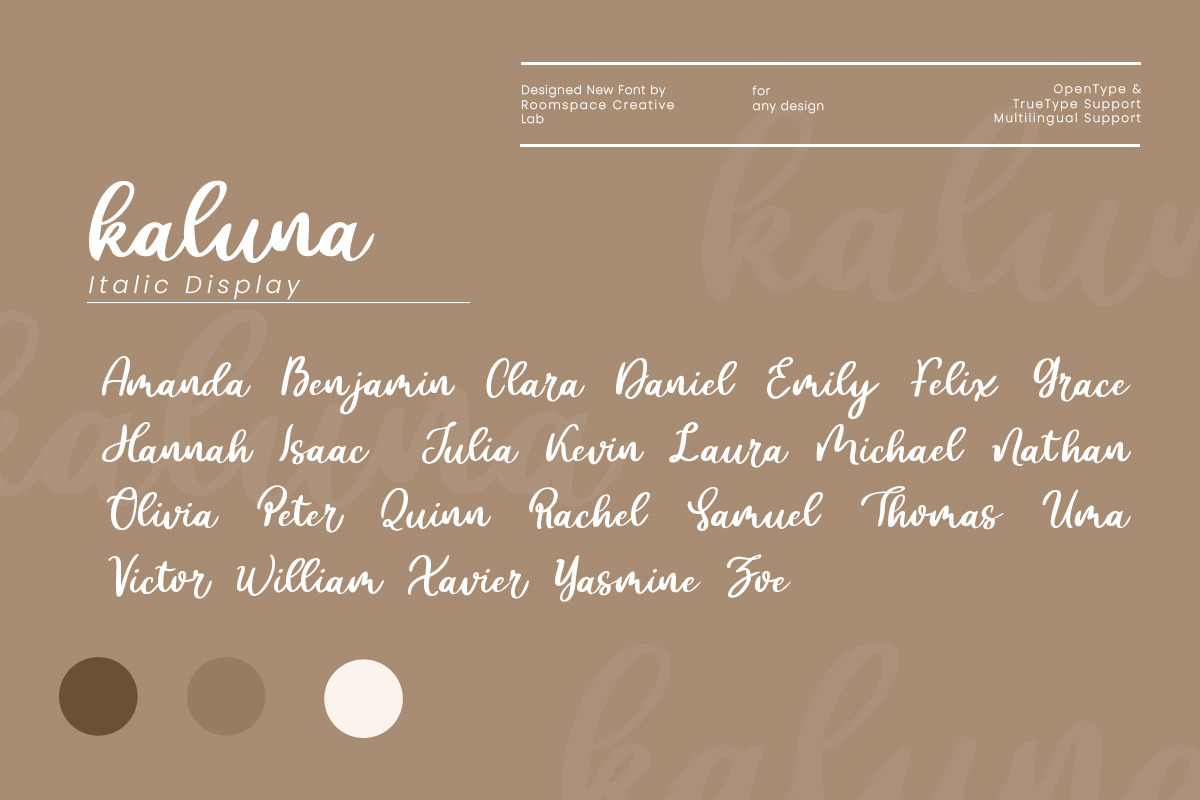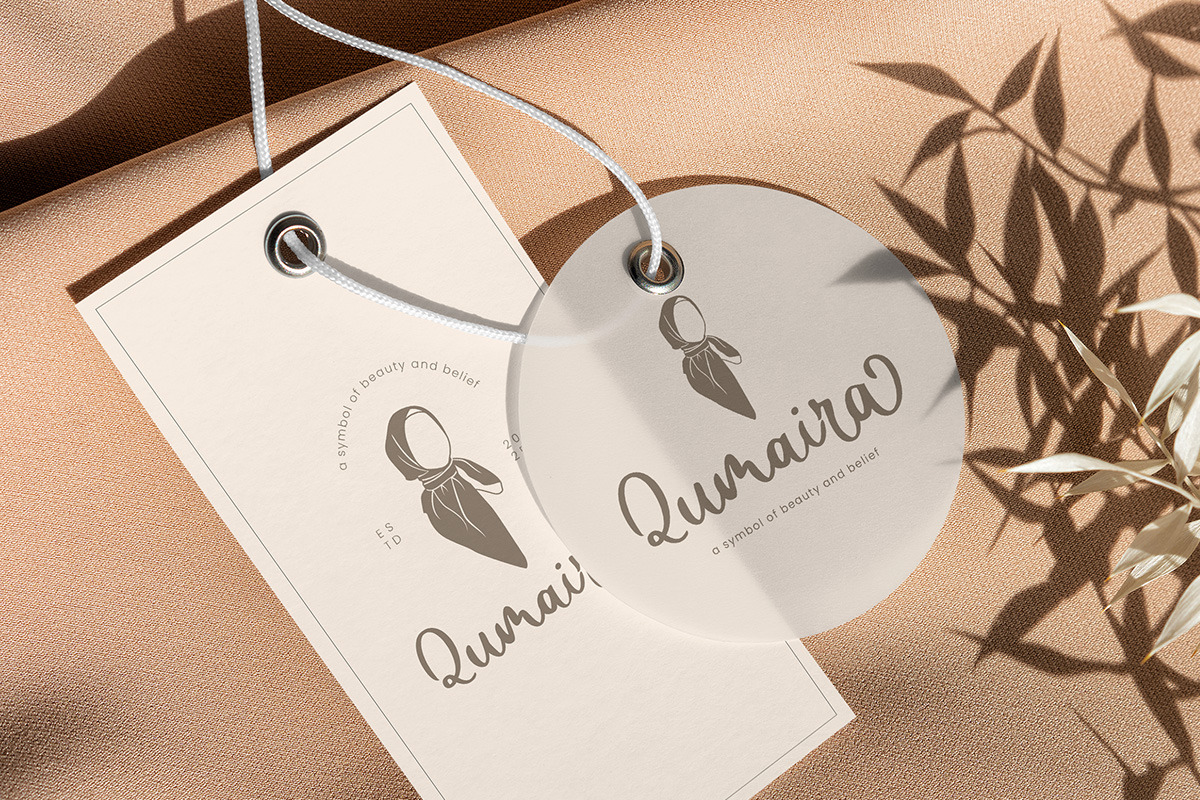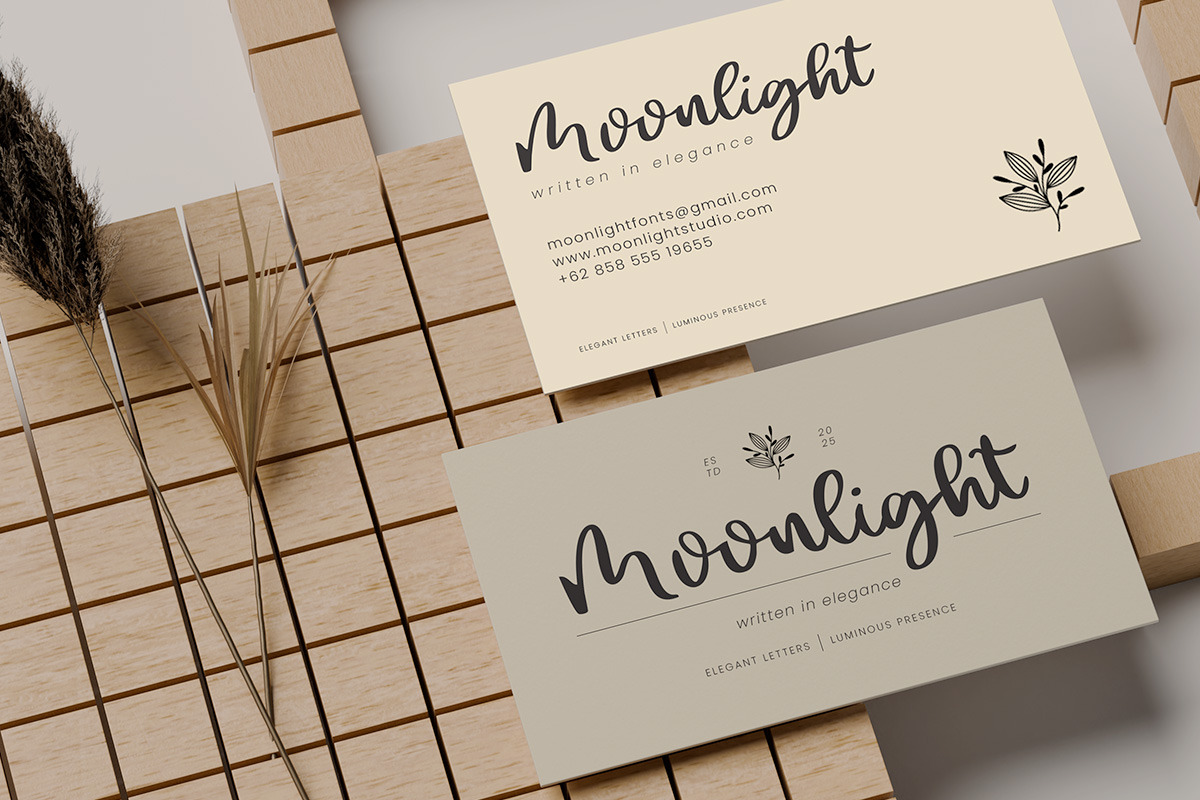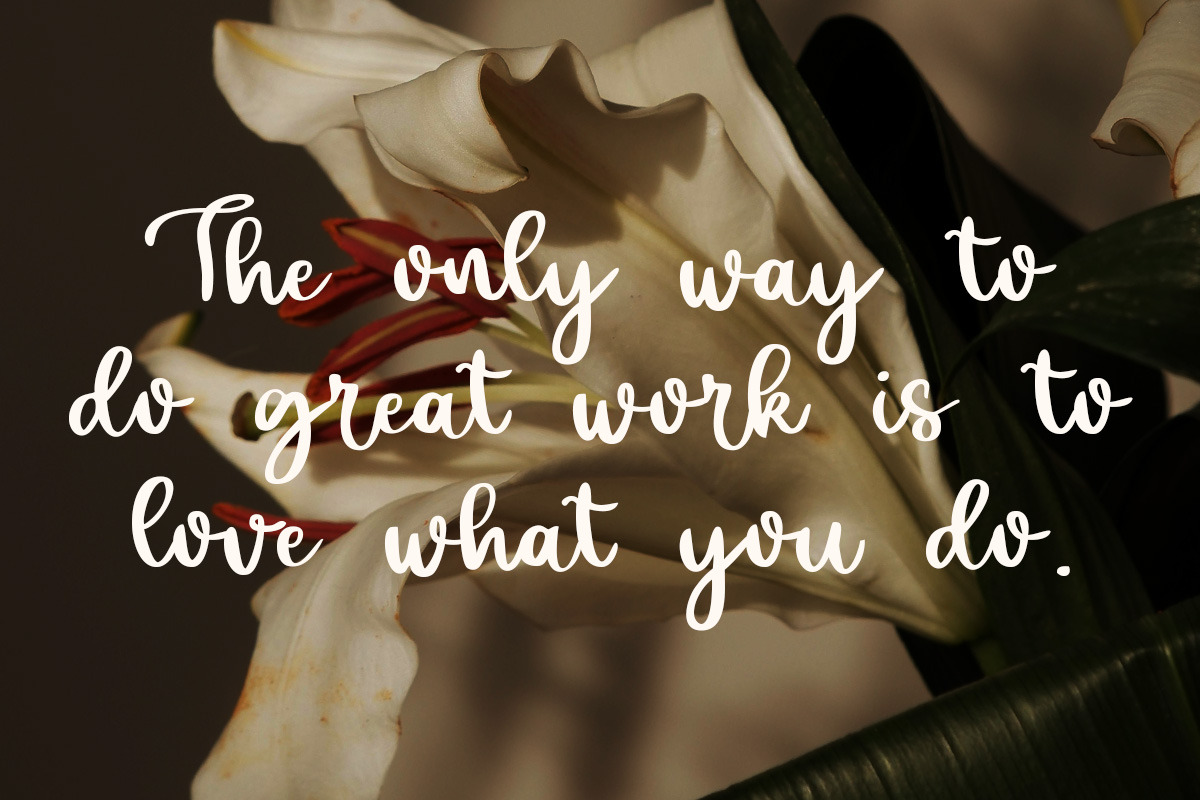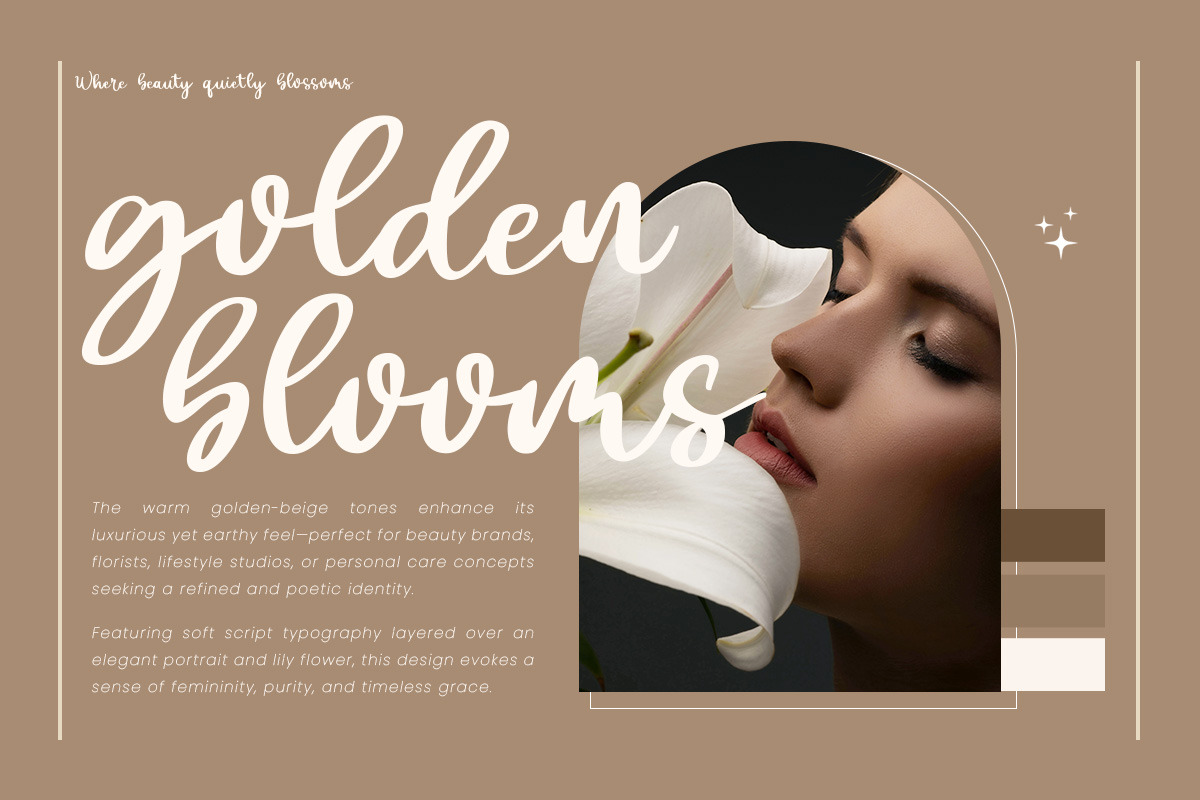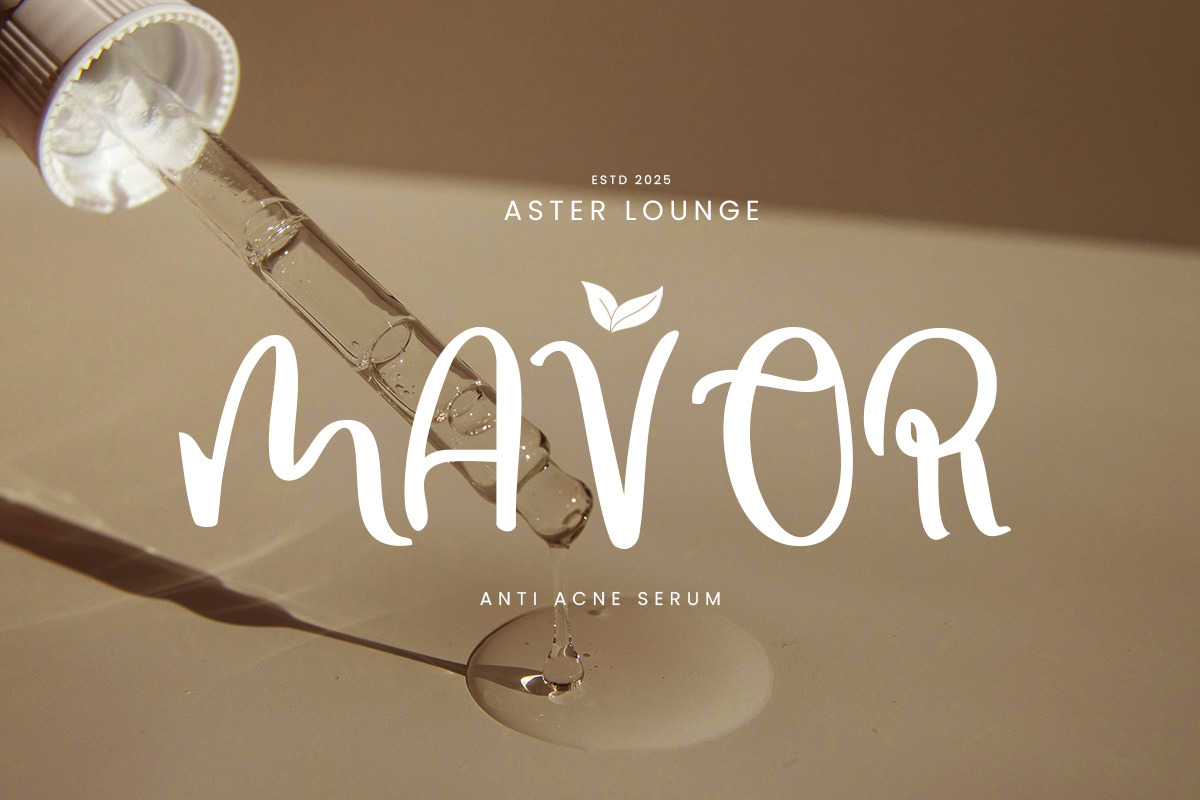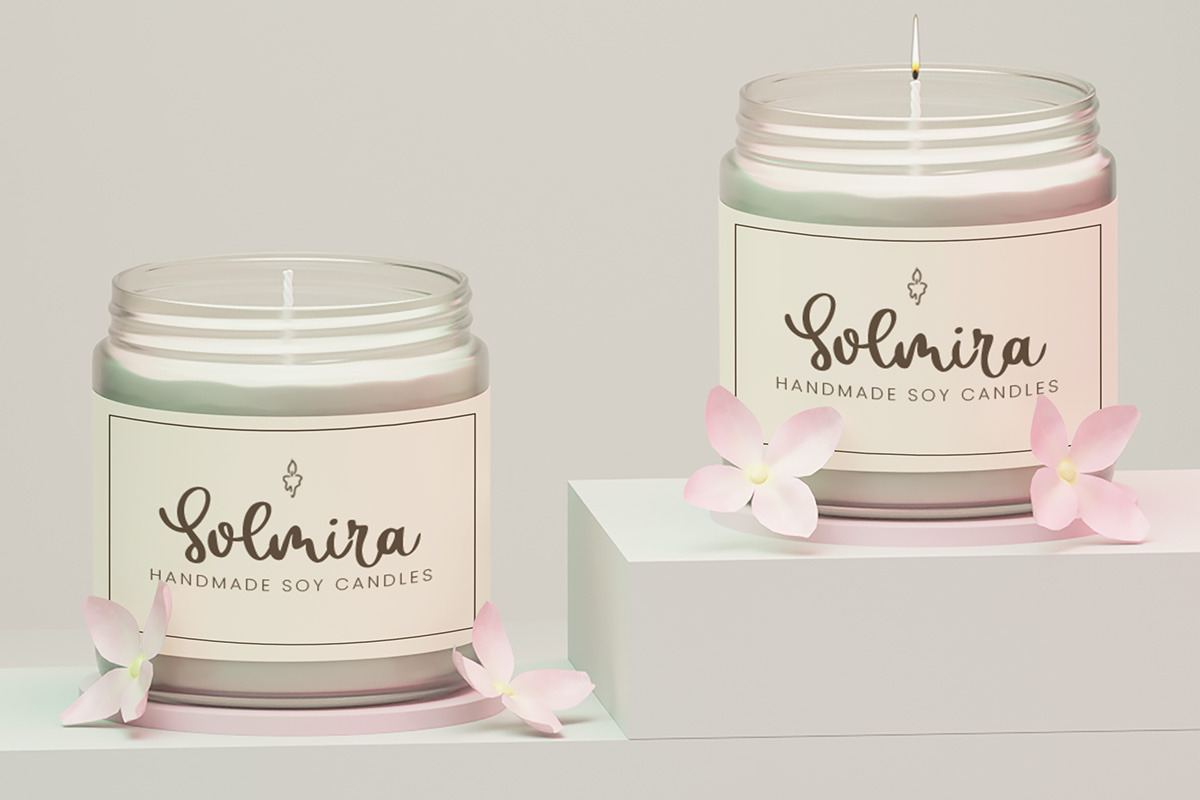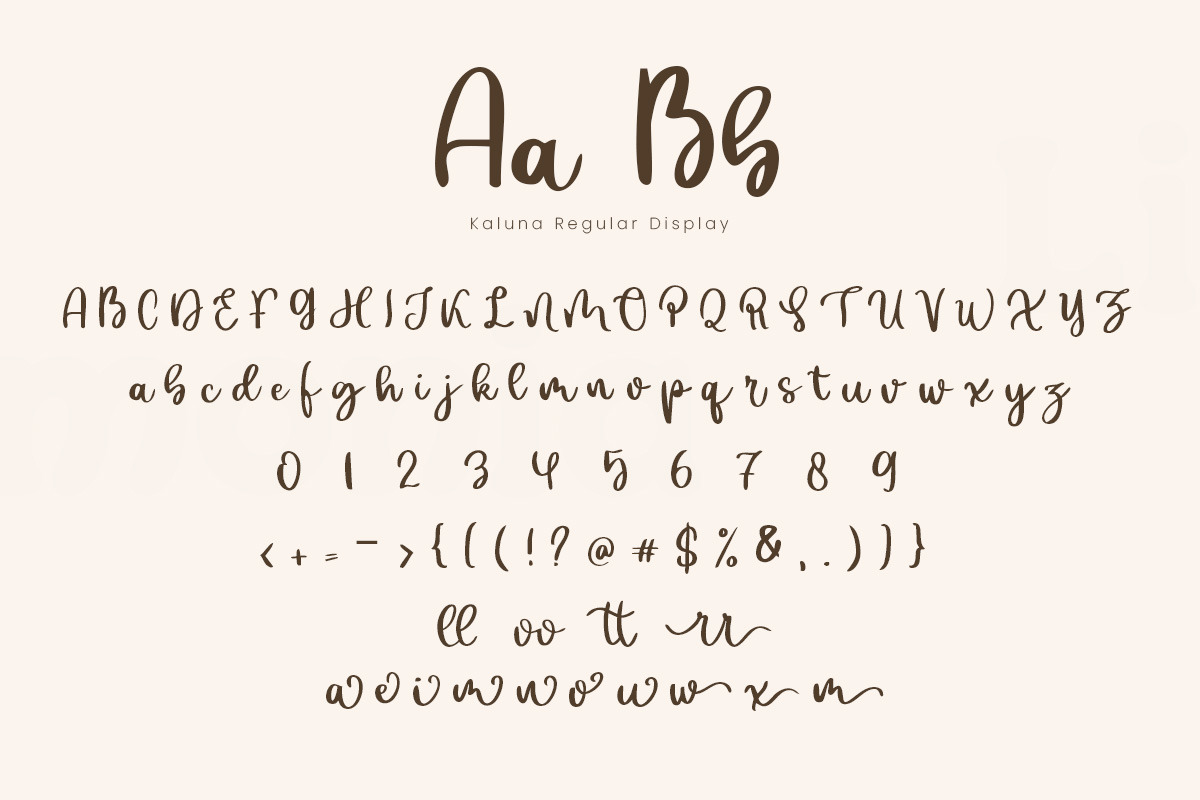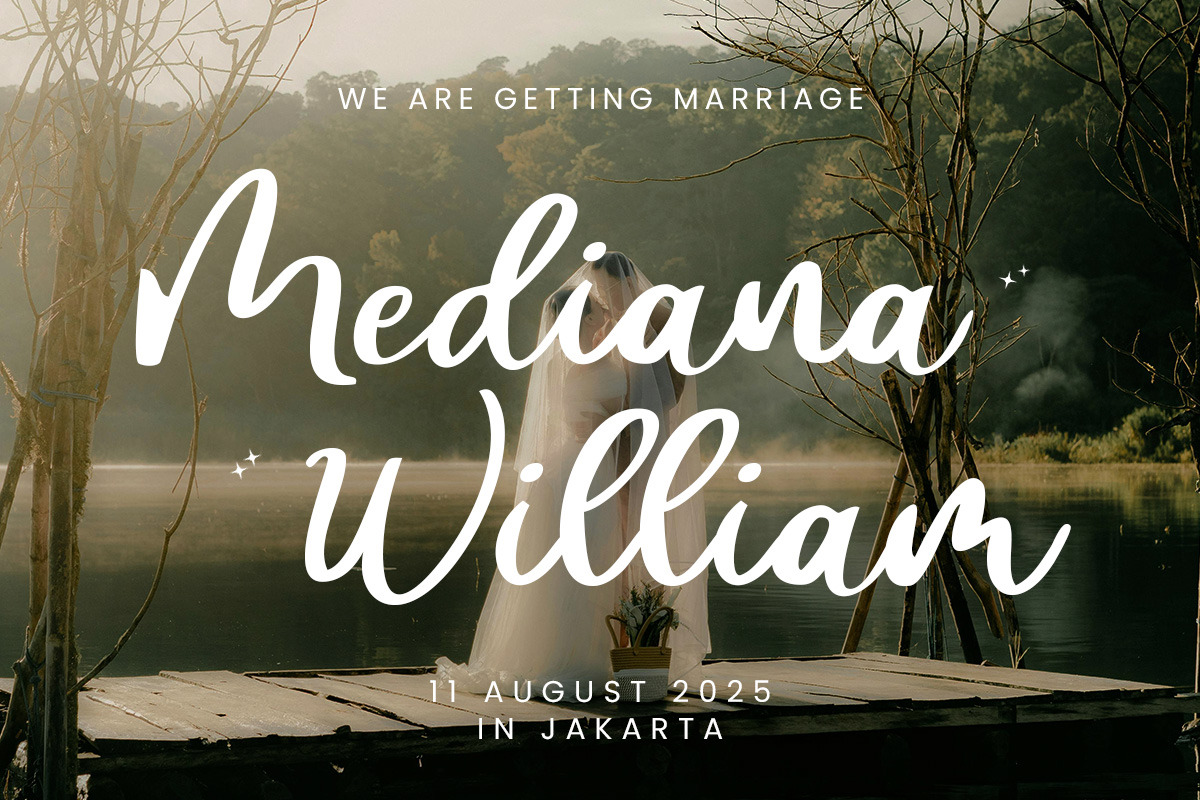
Kaluna – Elegant Handwritten Script
Introducing Kaluna a beautifully handwritten script font that brings elegance, warmth, and personal charm to every design.
With soft curves, graceful connections, and a natural flow, Kaluna captures the feel of modern calligraphy with a clean yet handcrafted touch. Each letter is carefully drawn to look effortlessly beautiful, making it perfect for those seeking a romantic and personal aesthetic.
Whether you're designing wedding invitations, logos, packaging, or inspirational quotes, Kaluna adds an emotional and timeless feel to your visuals. Its smooth, consistent strokes make it easy to use and lovely to read, giving your words a soft yet impactful presence.
- Standard punctuation & numerals
- Smooth letter connections
- Handwritten calligraphic style
- Wedding invitations & stationery
- Feminine branding & photography logos
- Quotes, blog headers, and journals
- Greeting cards & personal projects
- Packaging & product labels
Why Kaluna? Because sometimes, elegance is in the softness of a handwritten touch. Let your message bloom with Kaluna’s natural charm.